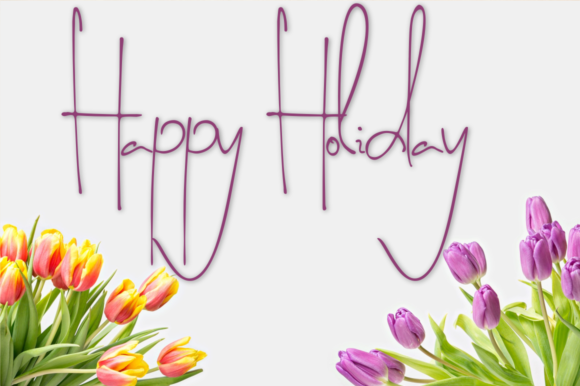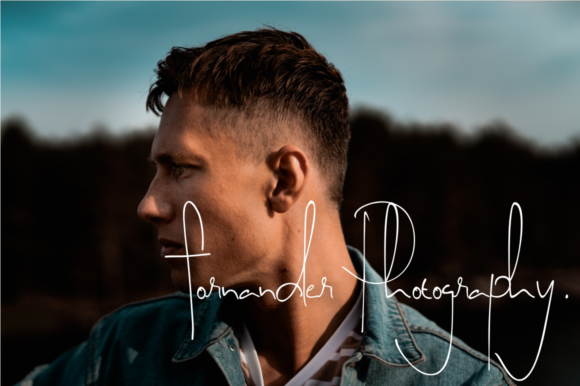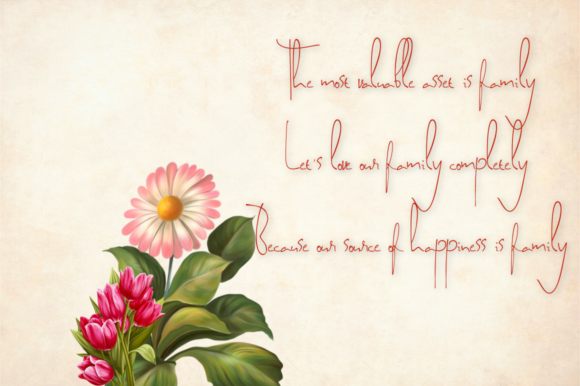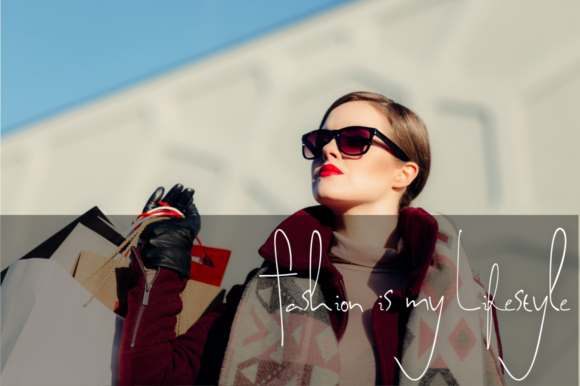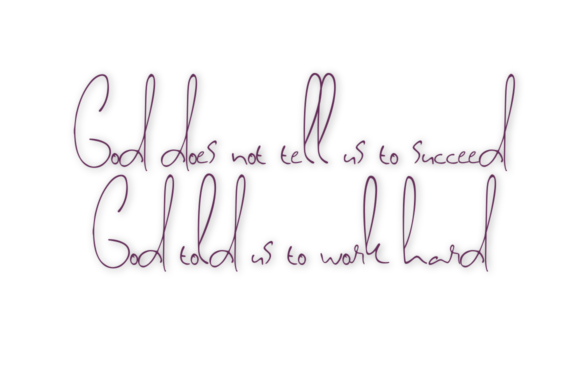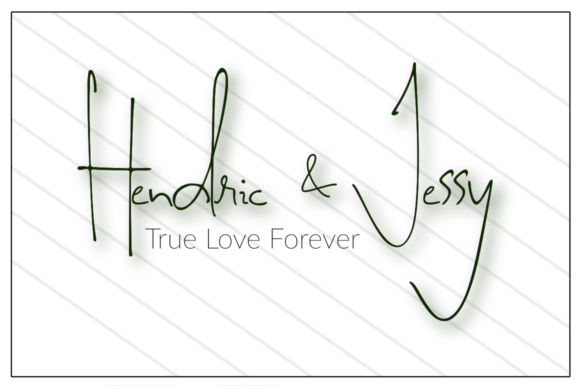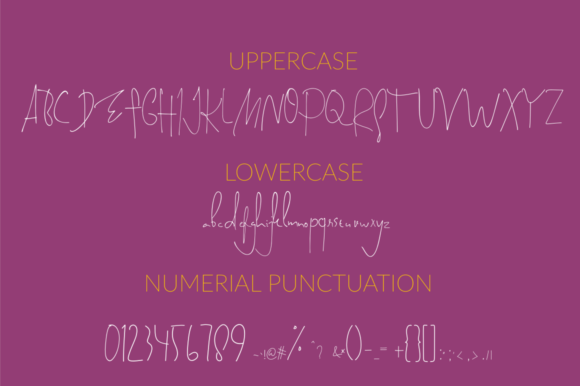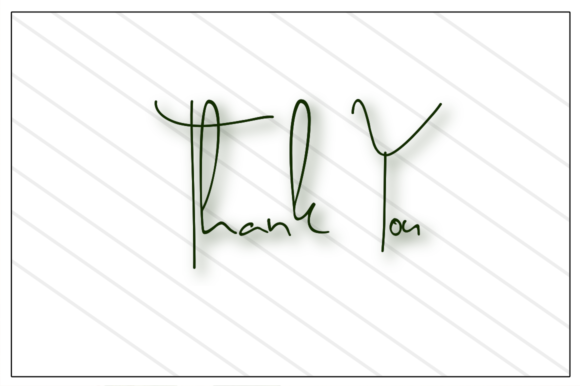
Satriya Maya Font
About Satriya Maya Font
The Satriya Maya is a beautiful handwritten font. It has a very natural writing style with a elegant feel.
It’s perfect for magazines, posters, book covers, invitations, and much more!